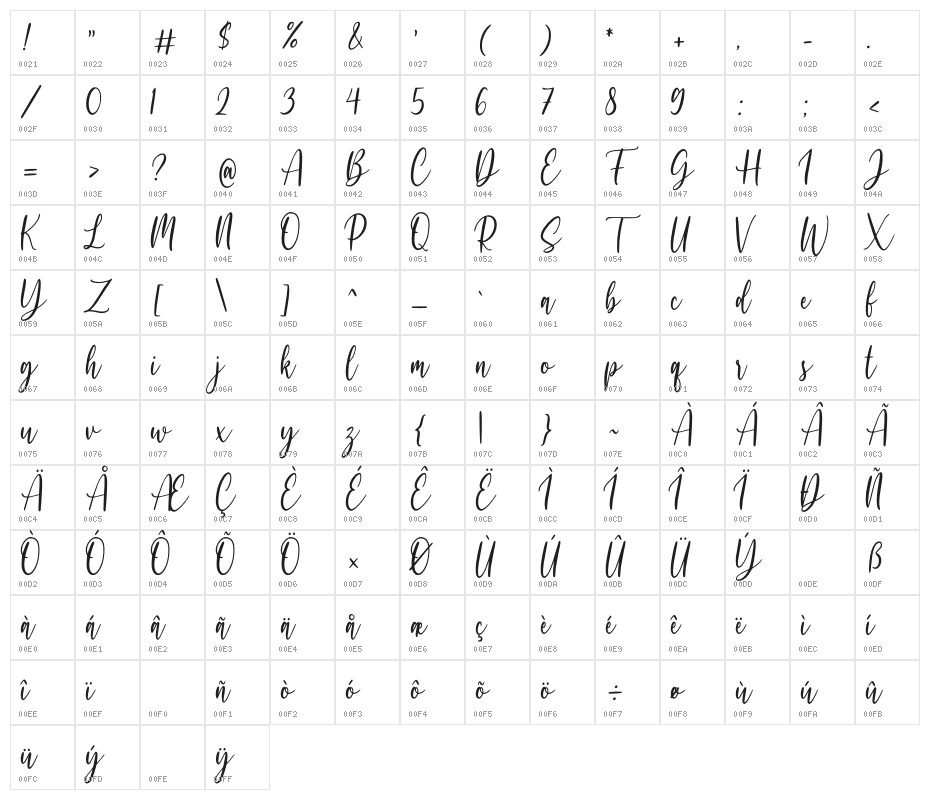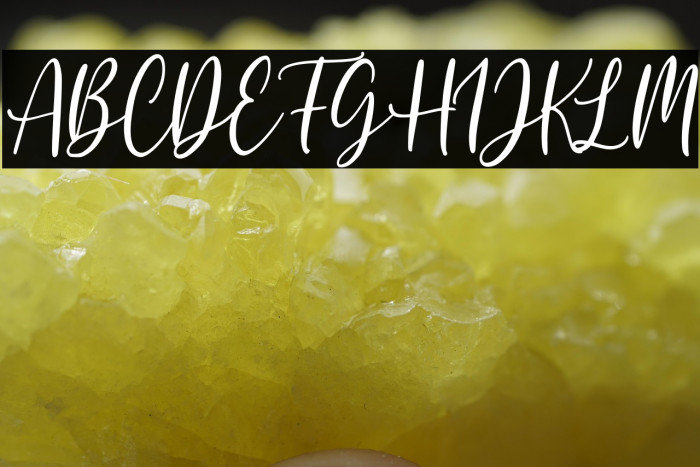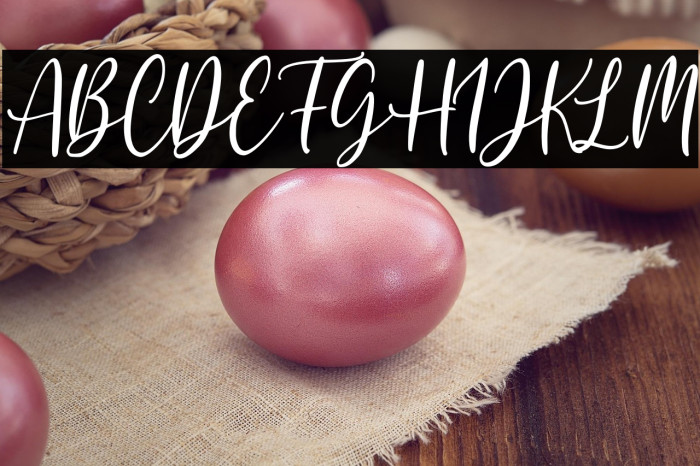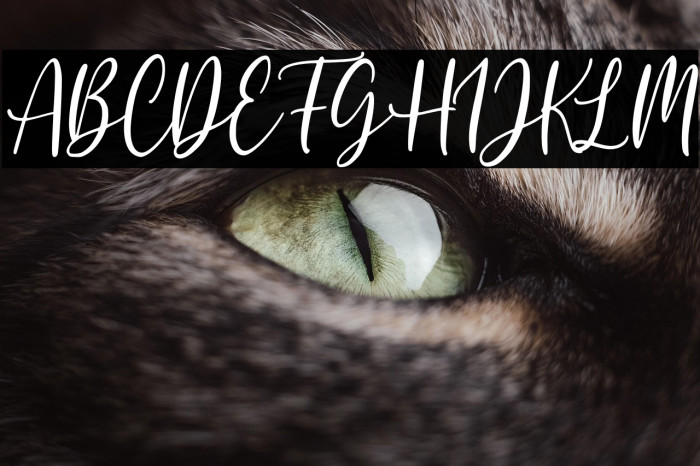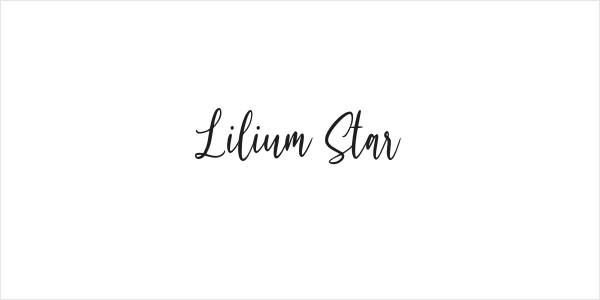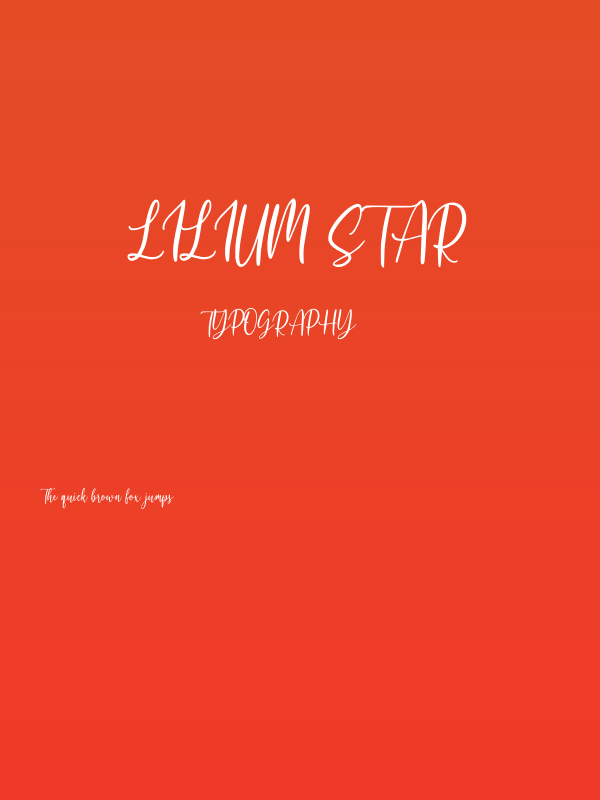
Lilium Star Font
Lilium Star Description
This elegant script font features fluid, connected strokes that mimic the natural flow of handwriting. The uppercase letters are tall and graceful, while the lowercase letters maintain a consistent rhythm and balance. The numerals are clear and legible, complementing the overall style. Special characters are thoughtfully designed to integrate seamlessly with the rest of the font. The strokes vary in thickness, adding a dynamic and lively feel to the text. This font is perfect for projects that require a personal touch, such as invitations, greeting cards, and branding materials.
| Proposed Projects | Ideal for invitations, greeting cards, branding, and personal projects. |